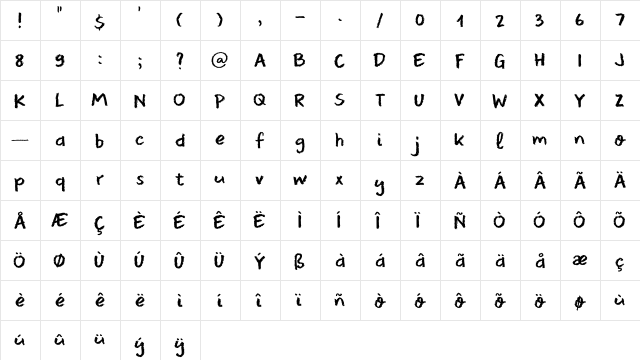
DK Leftover Crayon Regular
| Foundry | David Kerkhoff |
| Designer | David Kerkhoff |
Design Context for DK Leftover Crayon Typeface
DK Leftover Crayon is a composed and adaptable typeface that performs quietly and consistently across a wide range of design contexts.